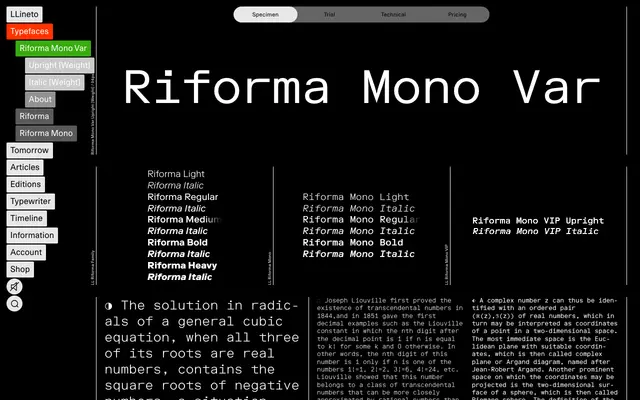
LL Riforma Mono VIP
Lineto · NORM (Dimitri Bruni, Manuel Krebs, Ludovic Varone) · 2024
A monospaced companion to LL Riforma by Zürich studio NORM, released in 2024 to mark the studio's 25th anniversary, with full Unicode box-drawing character support.
Drawn by Dimitri Bruni, Manuel Krebs and Ludovic Varone of NORM, the family extends LL Riforma's geometric construction into a unified-width format, squeezing and expanding letterforms to fill their fixed boxes while retaining the original's graphic weight and readability at small sizes. The confidently prolonged serifs and crossbars introduce subtle playfulness within a tightly regulated system, and the softer overall texture distinguishes it from its predecessor. A full set of Unicode box-drawing and block-element characters nods to early digital semigraphics, now repurposed for contemporary typographic use.
A monospaced companion to the geometric sans LL Riforma, with boxy proportions and a large x-height; classified as mono due to unified character width and inclusion of Unicode box-drawing characters.